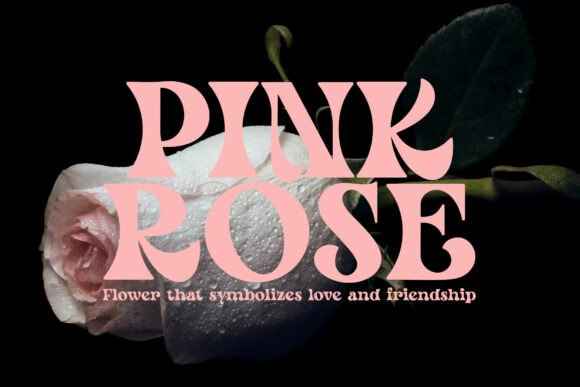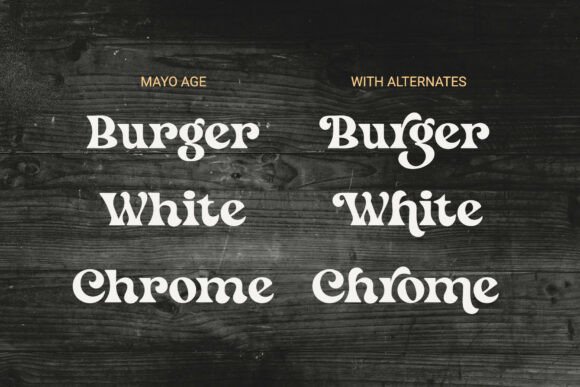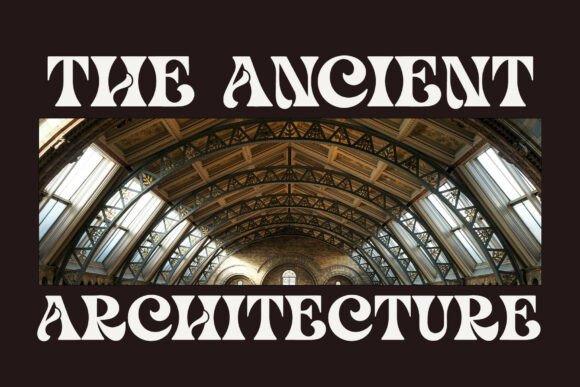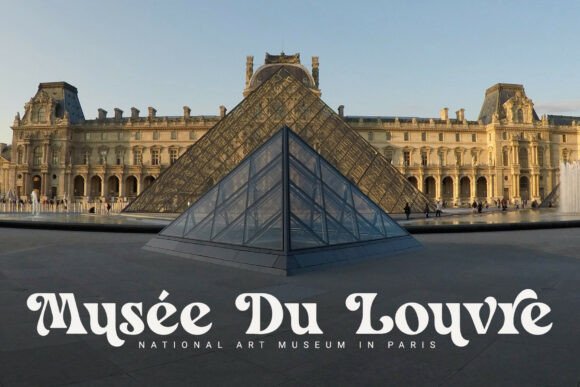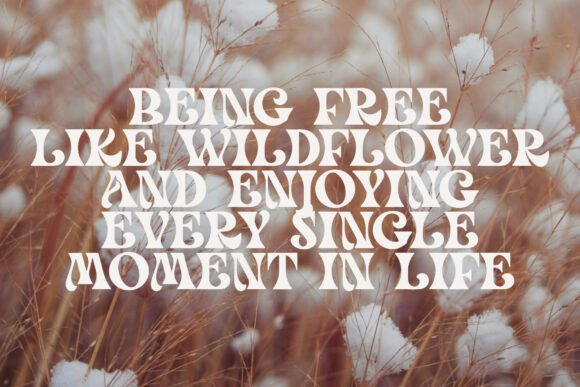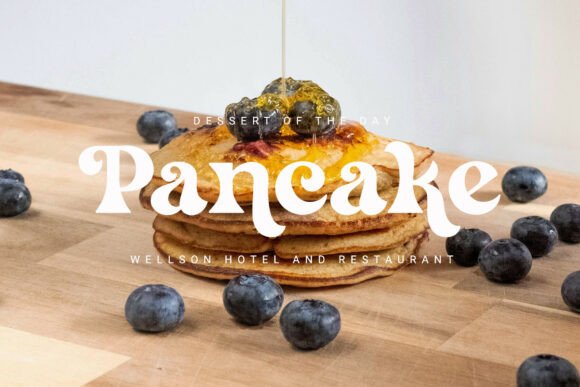
Discover the Timeless Charm of Mayo Age Font
As a designer, have you ever stumbled upon that one font that makes your creative project stand out from the rest? For me, that font is Mayo Age Font. Its elegant curves and sophisticated forms have a way of elevating any design to new heights. Whether you’re working on a high-quality logo, branding, or wedding invitation, Mayo Age Font is the perfect design resource to add a touch of class and creativity.
What sets Mayo Age Font apart is its versatility and attention to detail. With a range of alternative glyphs and a transparent background, this font is perfect for designers who want to unlock its full potential. And the best part? It’s available for free download, making it an invaluable asset for any design project. In this article, we’ll dive deeper into the world of Mayo Age Font and explore its features, uses, and why it’s a valuable addition to any designer’s toolkit.
Key Features of Mayo Age Font
- High-quality font design suitable for various creative projects, including digital art, graphic design, and web development.
- Transparent background, making it easy to combine with other design elements or images.
- Each font character is meticulously crafted to provide a unique and stylish look, perfect for adding a touch of elegance to your design.
- Designed to be highly legible, even at small font sizes, making it ideal for use in a variety of contexts, from body text to headings.
Honest Review: Mayo Age Font
I recently had the chance to work with the Mayo Age Font, and I have to say, it was a pleasant experience. This font is a great addition to any creative project, offering a high quality and unique aesthetic.
- Transparent background, making it easy to use in various design scenarios
- High-quality design, making it suitable for a wide range of creative projects
- Limited character set, which may be a concern for those who need to use it extensively
- No bold or italic variations, which may limit its versatility
Overall, I was impressed with the Mayo Age Font. Its unique design and high quality make it a valuable addition to any design resource. While it may have some limitations, I believe it’s well worth checking out, especially for those on a budget or just starting out with design.
Mayo Age Font
The Mayo Age Font is a high-quality design resource ideal for creative projects requiring a unique and elegant touch. This font is available for free download, making it a valuable asset for designers and artists.
Tips for Getting the Most Out of Mayo Age Font
To get the most out of the Mayo Age Font, experiment with different text sizes, colors, and backgrounds. You can also pair it with other fonts to create a unique and eye-catching design.
Common Use Cases for Mayo Age Font
The Mayo Age Font is perfect for use in various creative projects, including logos, business cards, brochures, and social media graphics. Its elegant design makes it ideal for formal and professional applications.